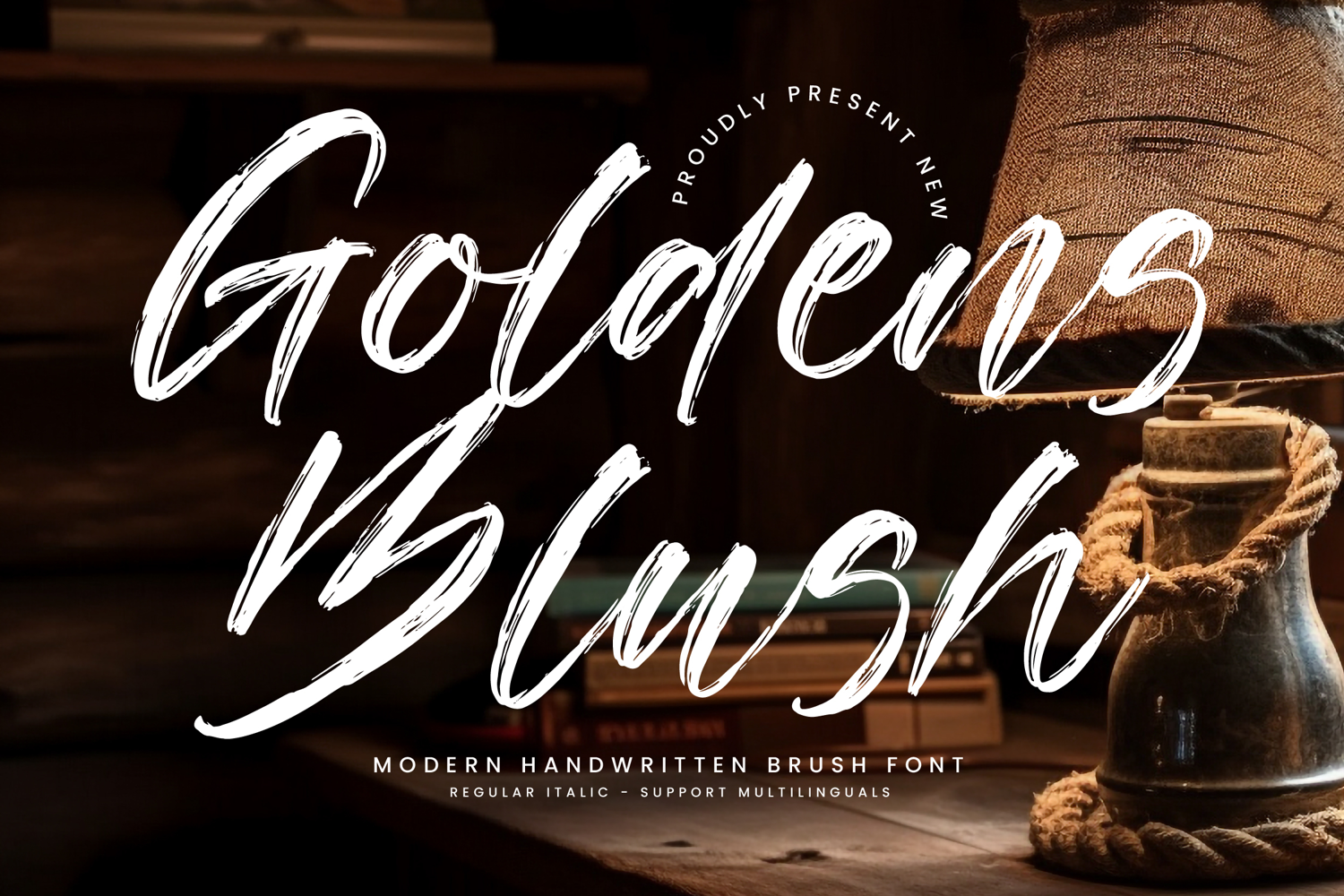
Goldens Blush - A Modern Handwritten Brush
Goldens Blush - A Modern Handwritten Brush Font, from Integritype Studio, perfect for any project like: logos, branding projects, homewares designs, product packaging, mugs, quotes, posters, shopping bags, t-shirts, covers books, business cards, invitation cards, greeting cards, labels, photography, watermarks, special events and all your other luxury projects that require a premium taste.
Ligatures, Alternate & Swashes
The font includes support for 65 languages; Afrikaans, Albanian, Asu, Basque, Bemba, Bena, Breton, Catalan, Chiga, Cornish, Danish, Dutch, English, Faroese, Filipino, French, Friulian, Galician, German, Gusii, Indonesian, Irish, Italian, Kabuverdianu, Kalenjin, Kinyarwanda, Luo, Luxembourg, Luyia, Machame, Makhuwa-Meetto, Makonde, Malagasy, Manx, Morisyen, North Ndebele, Norwegian Bokmål, Nynorsk Norwegian, Nyankole, Oromo, Portuguese, Quechua, Romansh, Rombo, Rundi, Rwa, Samburu, Sango , Sangu, Scottish Gaelic, Sena, Shambala, Shona, Soga, Somali, Spanish, Swahili, Swedish, Swiss, German, Taita, Teso, Uzbek (Latin), Volapük, Vunjo, Zulu,